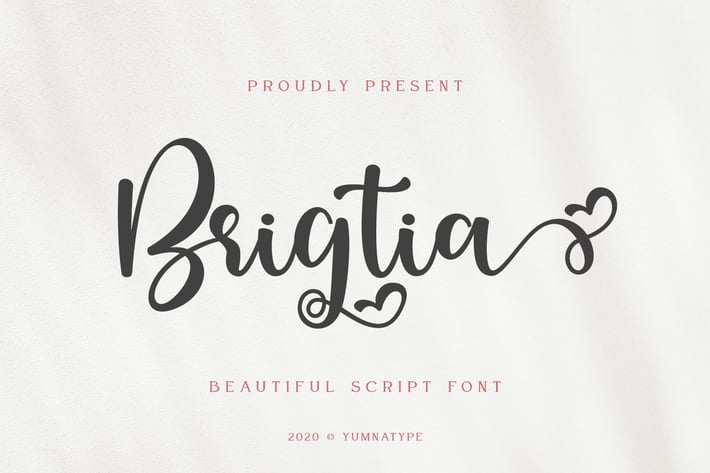
Brigtia Script Font
YumnaStudio
Brigtia is a beautiful script font with a natural and unique design will make your project more beautiful and powerful. The font is suitable for your branding project and any design.
- 8 Alternates
- 52 Swashes
- 5 ligarures